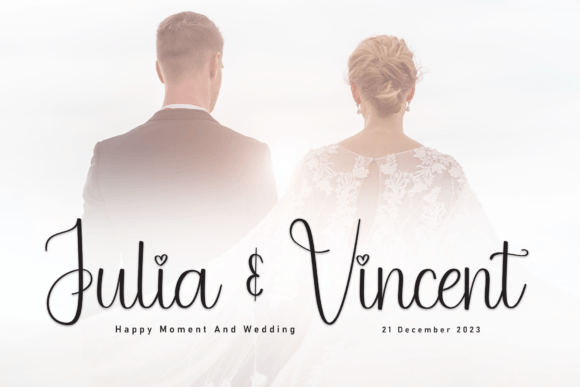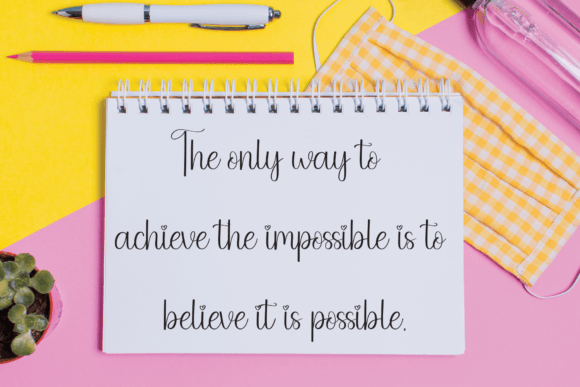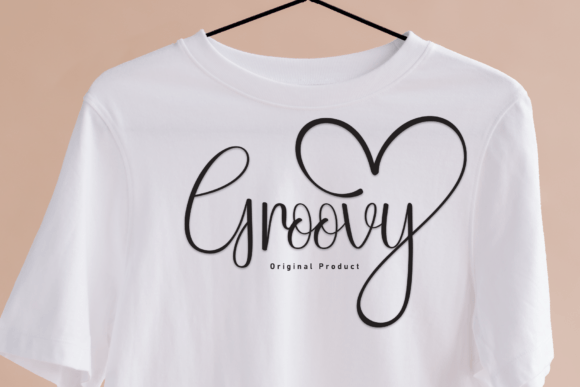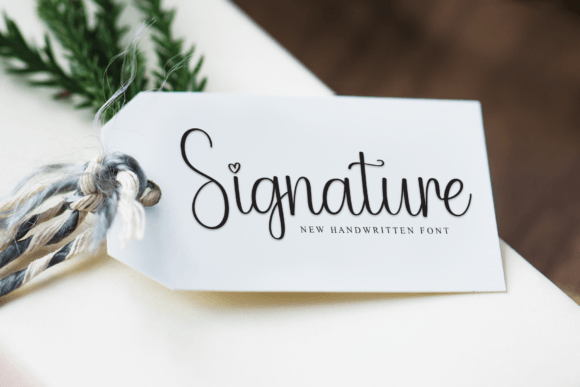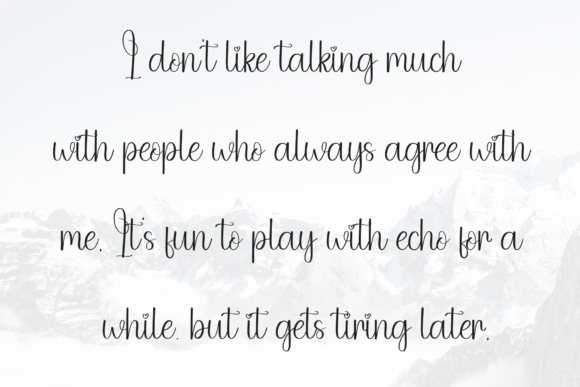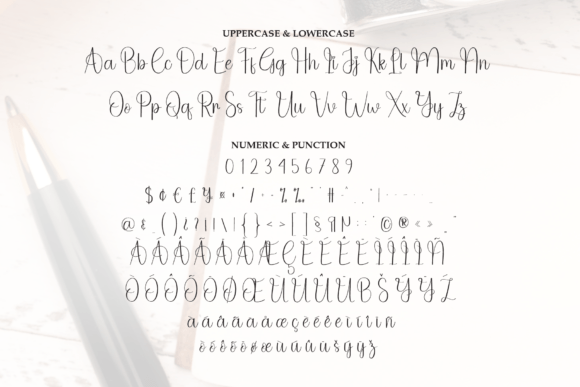
The Perfect Blend of Elegance and Creativity
Have you ever been working on a design project and suddenly, you’re hit with that elusive spark of inspiration? The kind that makes you forget about deadlines and focuses solely on bringing your vision to life? For designers, moments like these are what make all the hard work worth it. And it’s often in these moments of pure creativity that the perfect font can make all the difference.
That’s where the Autography Font comes in – a delicate, elegant, and flowing handwritten font that adds a touch of sophistication to any design. With its beautiful and well-balanced characters, it’s the perfect match for a wide range of designs, from elegant invitations to modern branding.
For designers, the Autography Font is a valuable asset, offering a level of versatility and elegance that’s hard to find in other fonts. Whether you’re working on a high-end project or a more casual design, Autography Font is sure to elevate your work to the next level.
Autography Font Key Features
- Font Family: Autography Font is a modern script font designed for digital use.
- Unique Characteristics: Autography Font features a unique blend of elegance and playfulness, making it suitable for various design applications, including logos, titles, and body text.
Designer Review: Autography Font
Overall, I’d say Autography Font has some great qualities, but also some areas where it falls short. Let’s start with the positives.
✨ One of the things that works well about Autography Font is its unique, cursive style. It’s perfect for adding a touch of personality to your designs, especially for creative projects or those that require a more whimsical feel. The font is also quite versatile, with a wide range of weights and styles to choose from.
✨ Another strength of Autography Font is its legibility. Even at smaller font sizes, the text remains clear and easy to read, making it a great choice for body text or headings.
- ⚠️ Limited support for languages other than English and a few European languages. If you need a font that supports a wide range of languages, Autography Font might not be the best choice.
- ⚠️ The font can feel a bit overly ornate or busy at times, which may not be suitable for more formal or professional designs.
Overall, I’d say Autography Font is a solid choice for designers who need a unique, cursive font for creative projects. However, it may not be the best fit for more formal or language-intensive designs.
For best results, use the Autography Font in conjunction with bold or italic styles to create a unique and personalized look.
Experiment with layer blending modes and opacity to add depth and interest to your design.
Use the Autography Font to create eye-catching headings and titles that grab attention.
Use the Autography Font for:
- Personalized stationery and invitations.
- Wedding and event branding.
- Unique business cards and marketing materials.
Experiment with different font sizes, colors, and styles to create a one-of-a-kind look that reflects your personality or brand.